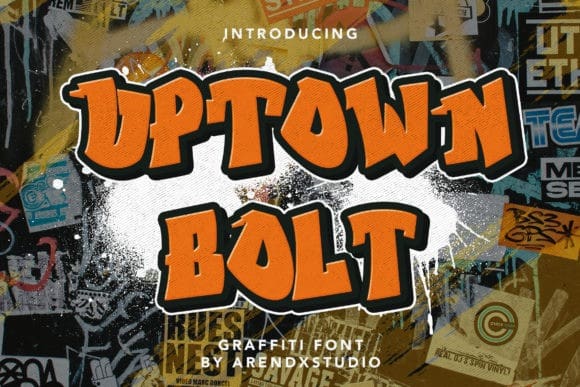
Uptown Bolt Font
Uptown Bolt Font is a cool display font inspired by graffiti and street-art typography. Its unique shape makes it perfect for any creative design project. Add it to your logotypes, posters, badges, book covers, T-shirts, packaging, and many more, and you will notice how it makes them stand out!